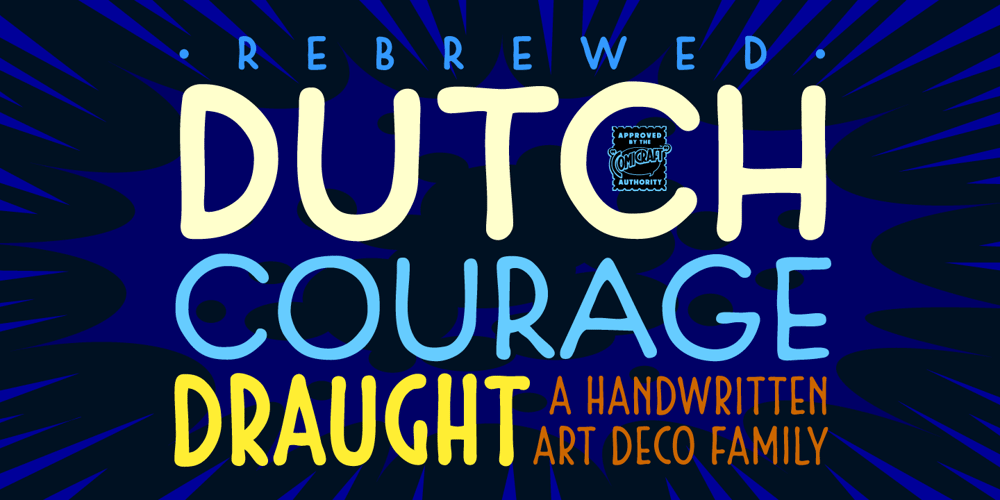
Dutch Courage Font Family was designed by Richard Starkings, John Roshell and published by Comicraft. Dutch Courage contains 7 styles and family package options. Developed by Comicraft’s Dutch Masters to give DC’s BATMAN & ROBIN ADVENTURES a crisp, clean, Art Deco look, all four pints of DUTCH COURAGE are available as one font family. Please refrain from operating heavy machinery within one hour of partaking of these intoxicating fonts.